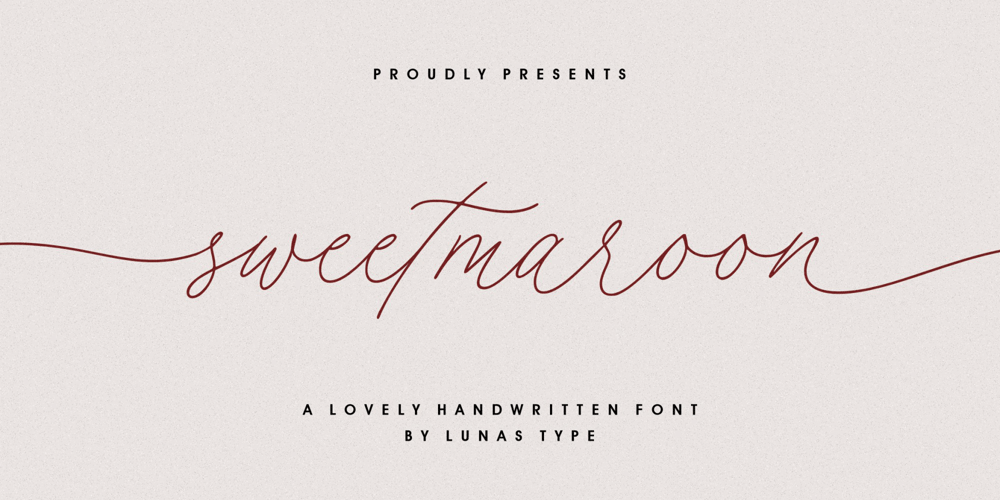
Sweetmaroon Font Family was designed by Annas Alam Yahya and published by Lunas Type. Sweetmaroon contains 1 styles and family package options. Sweetmaroon is a sweet and modern handwritten font. Sweetmaroon comes with begining and ending swashes. Just type “-” at the beginning or the end of the letters. Or you can access it via alternates option.Sweetmaroon is perfect for many design needs such as merch, T-shirts, titles, wedding, book covers, social media posts, websites, events, and many more.What’s you get :- Beginning & Ending Swashes – Numeral & Punctuation.- Ligature.- Multilingual Support.Enjoy Designing!Thanks!Lunas Type